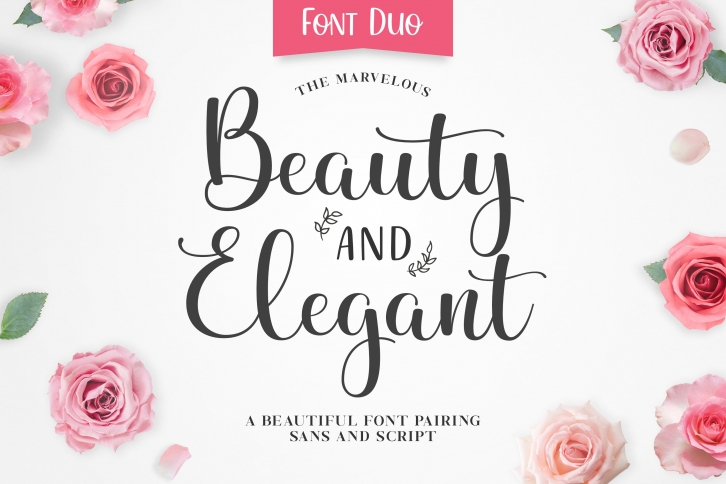
Beauty and Elegant is a beautiful font that was designed by Typestory co. It's a great choice for designers and creatives who need such a font. It was released on July 10, 2021 and the file size is 19.80 MB. Beauty and Elegant may give a more youthful, expressive and casual look to your project. It is a very beautiful, refined, elegant, and high-quality font.